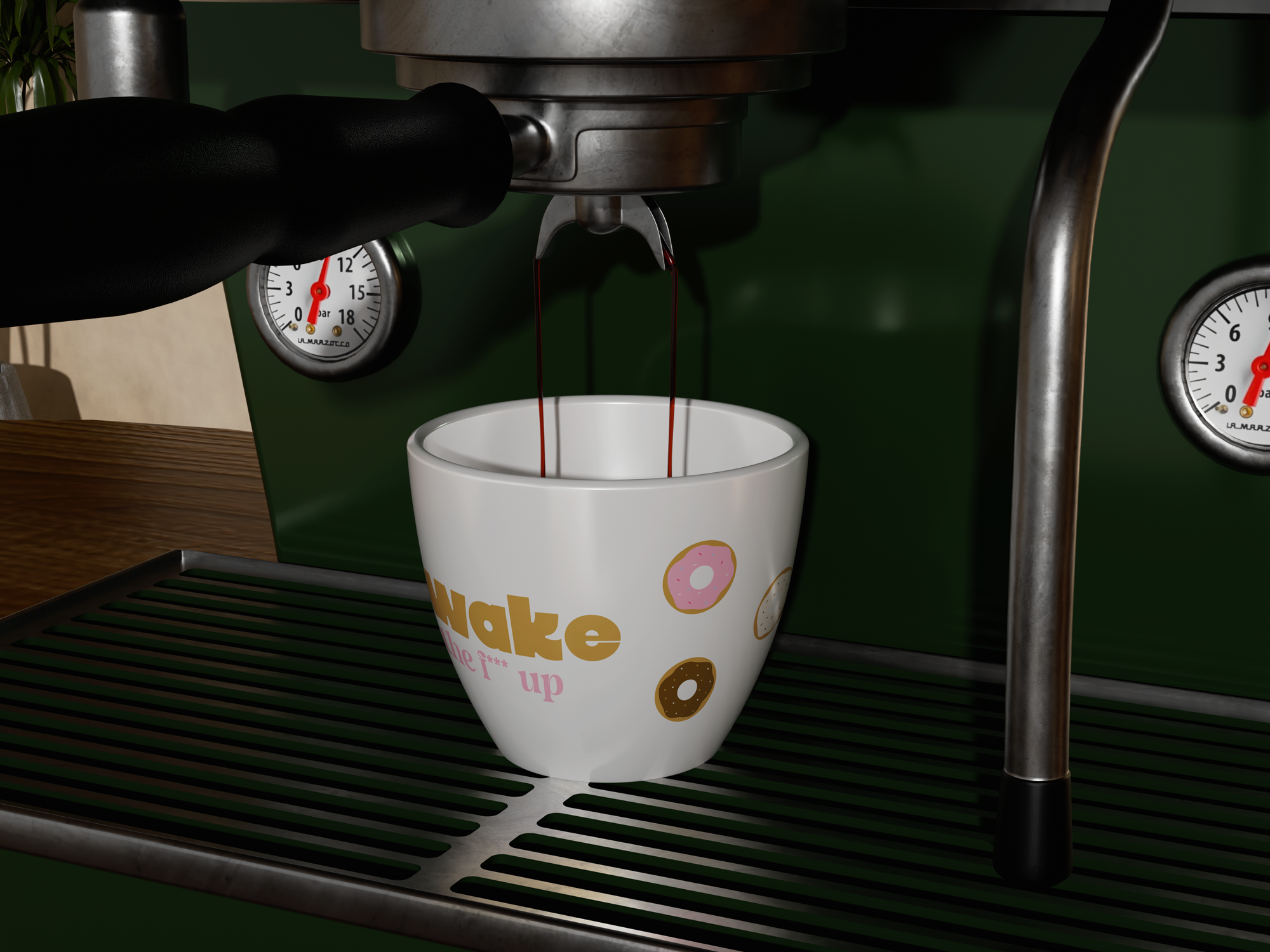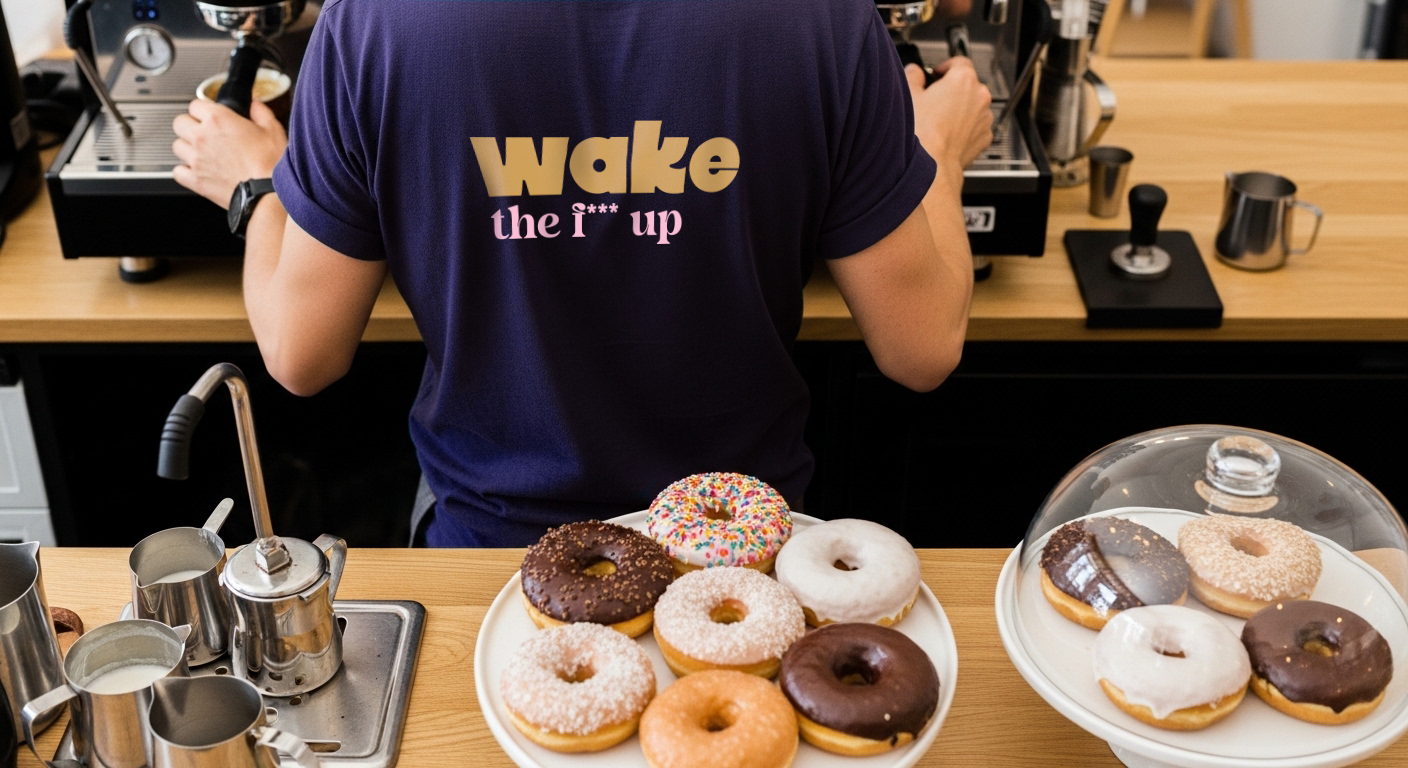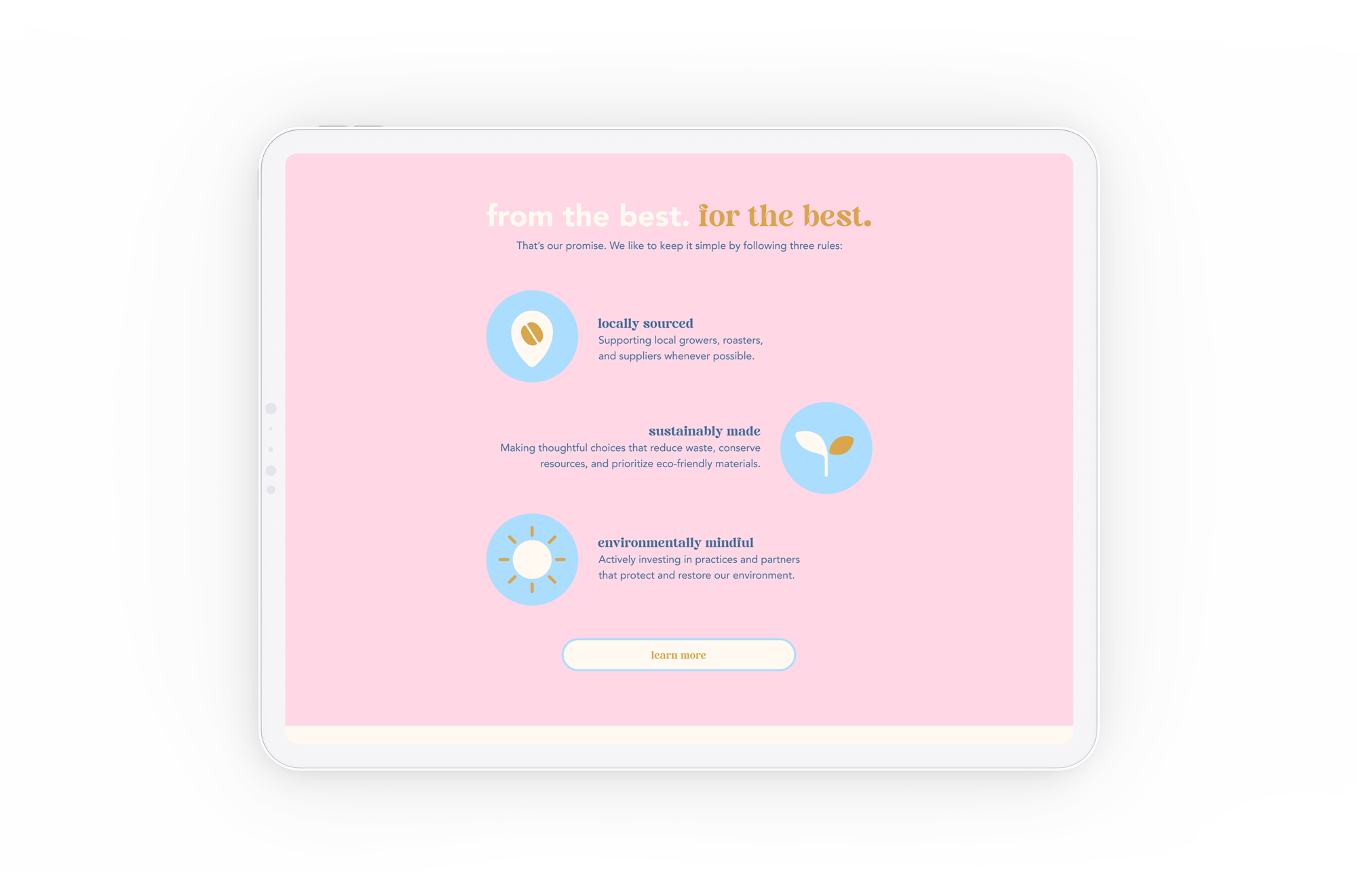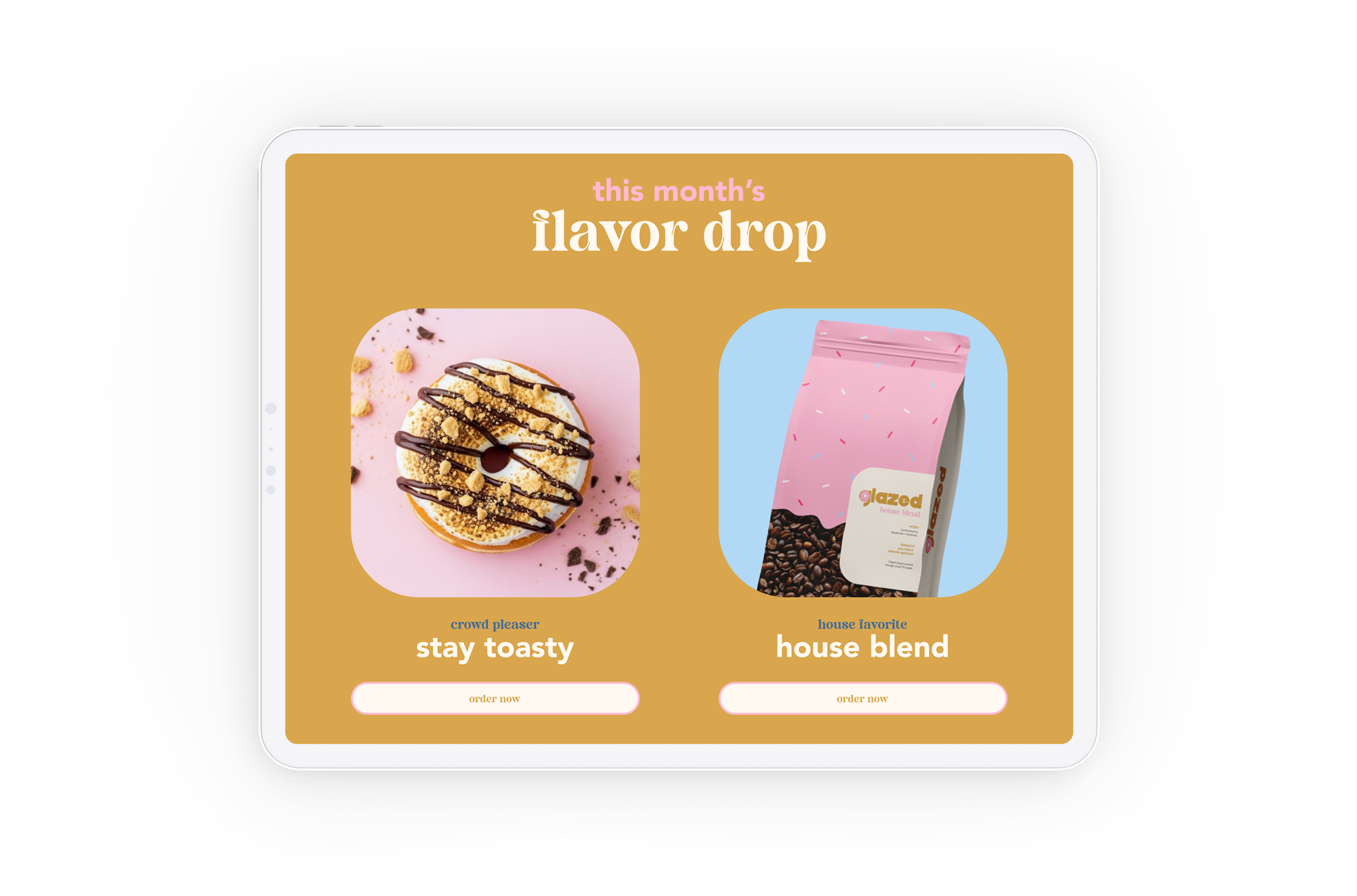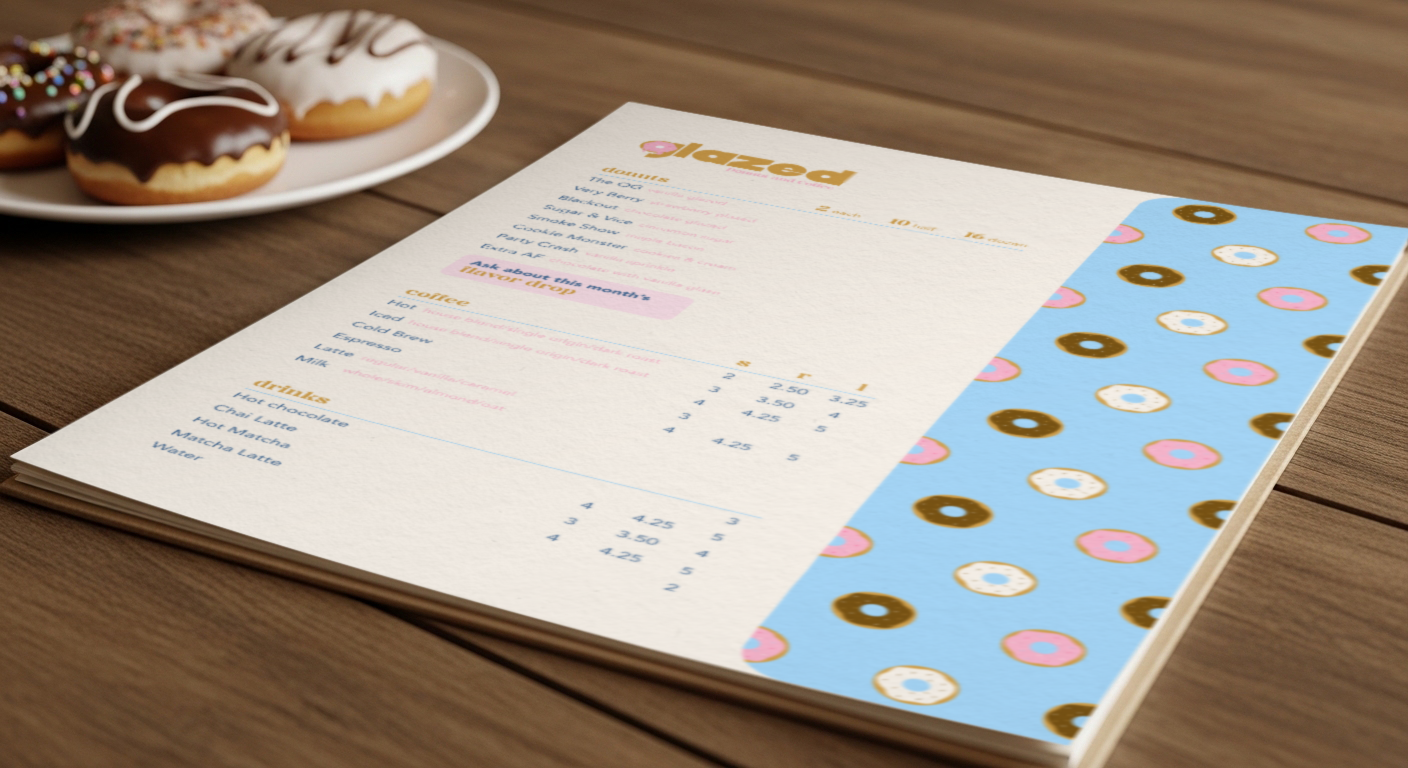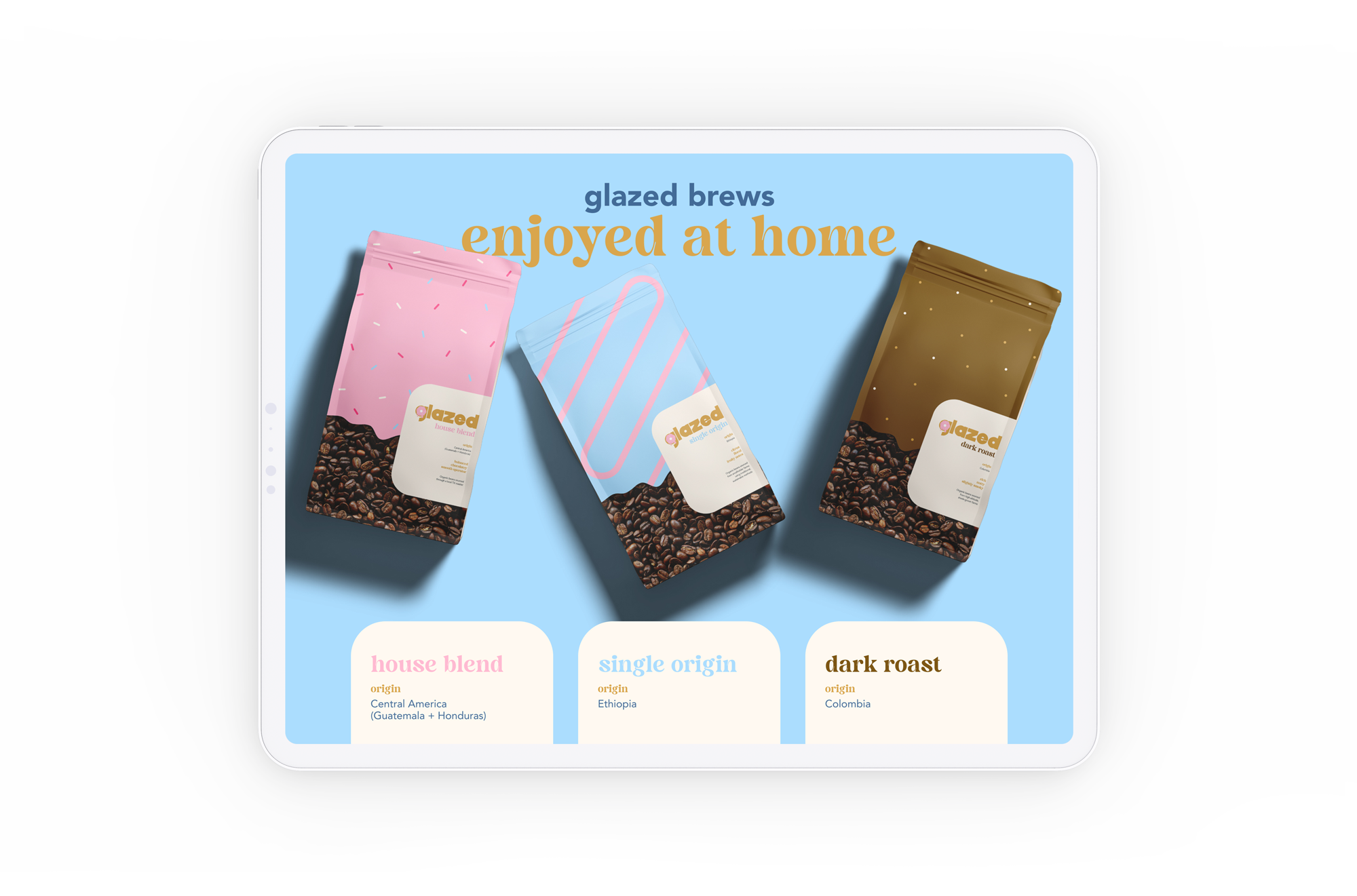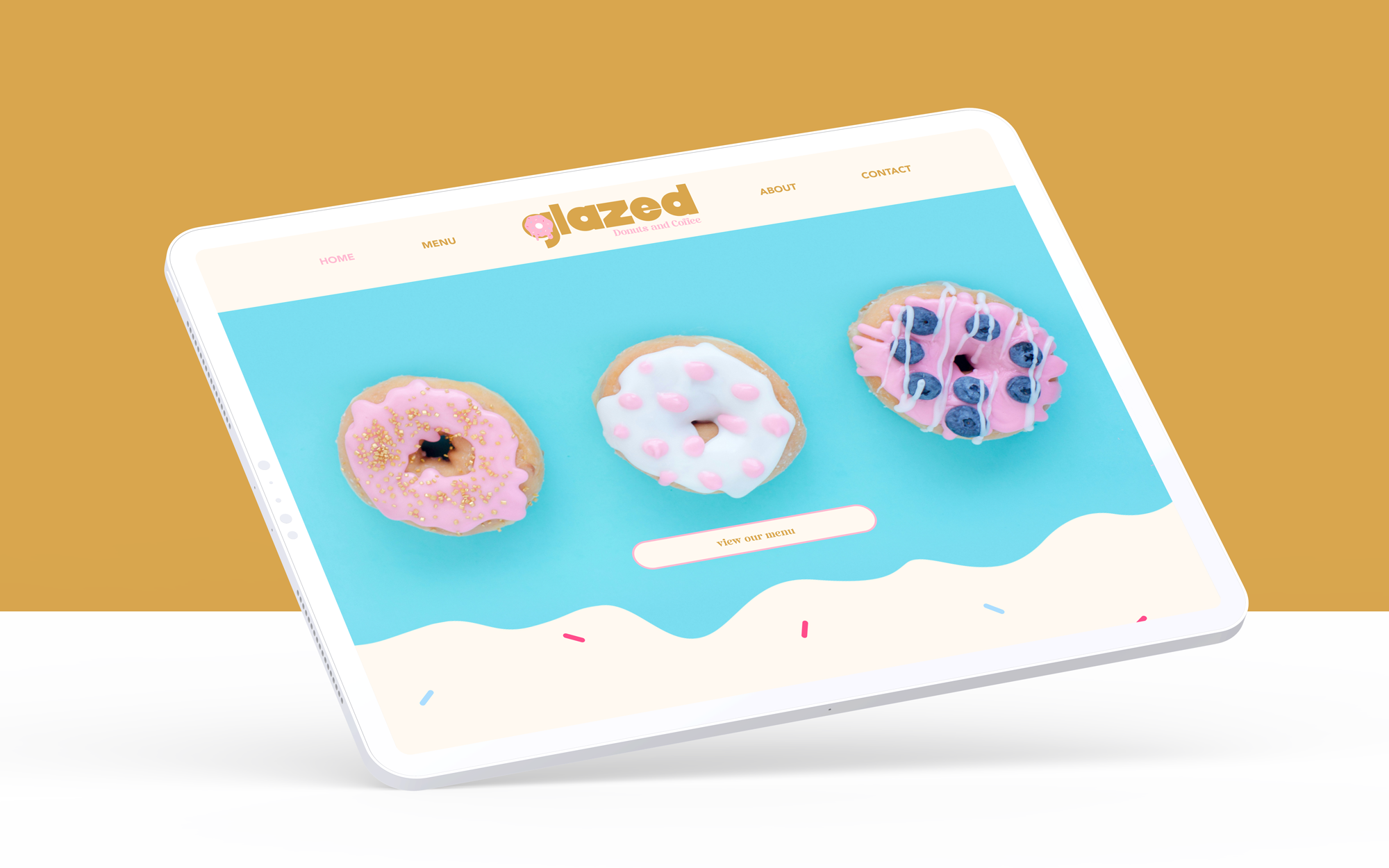
Glazed
Glazed was my chance to design something intentionally softer and more playful. Much of my work leans masculine, so I set out to create a “cute” concept that feels warm, fresh, and full of personality.
With handcrafted donuts, quality coffee, and a light, charming aesthetic, Glazed showcases a sweeter, more expressive side of my design style.